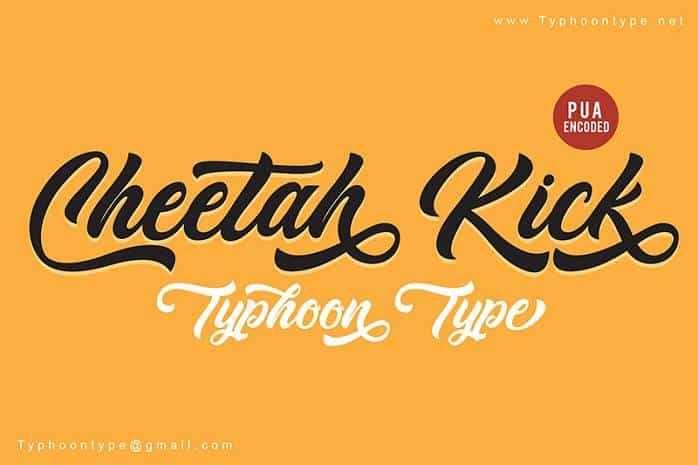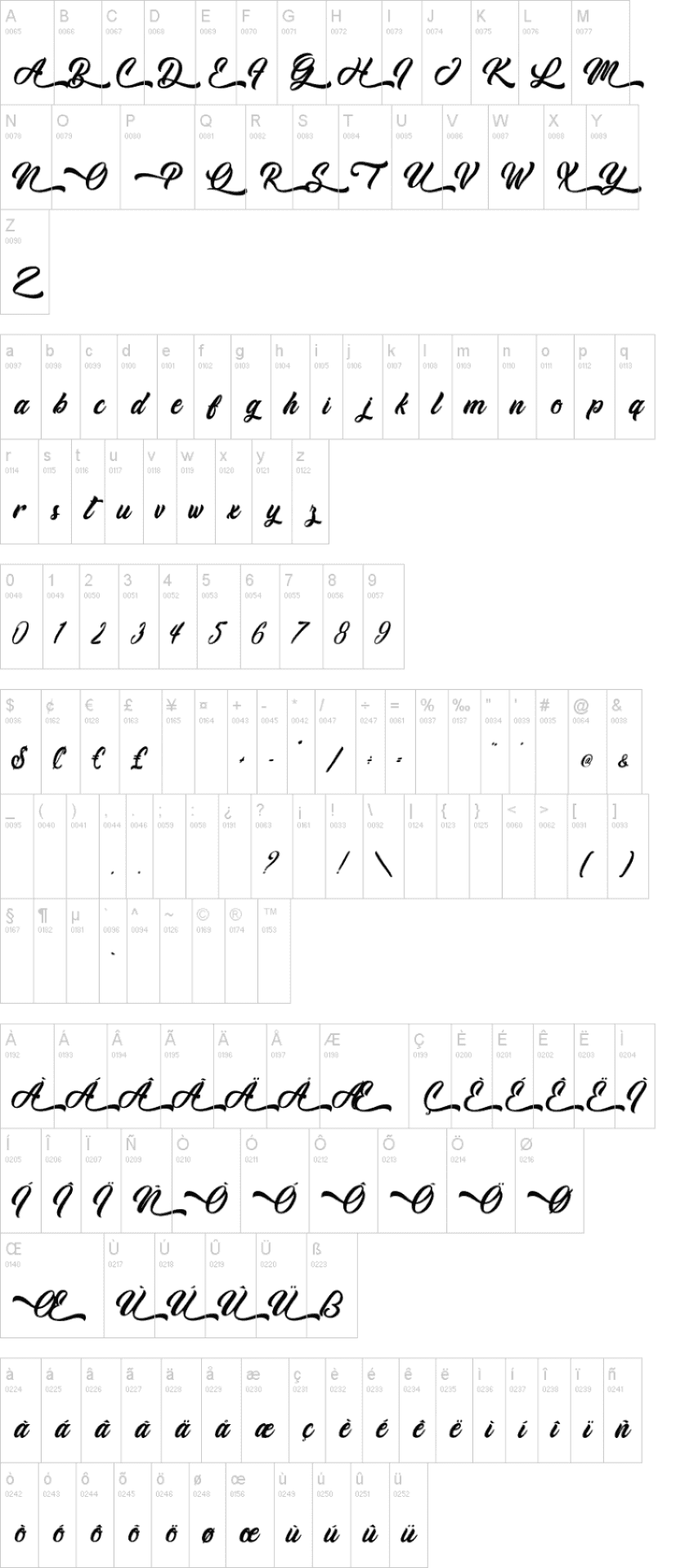
The Cheetah Kick font is a bold script font in today’s fashion that one can easily incorporate into nametags, logos, advertisements, products packaging, clothes, social networks, and more for any branding, poster or signage design.